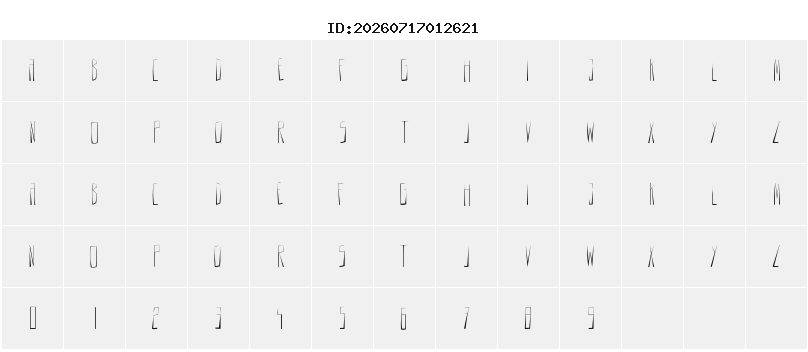
ANODIN Preview
• Font Name: ANODIN
• Designer: Guillaume Kurkdjian
About ANODIN.ttf
ANODIN.ttf is a modern, elegant sans-serif font designed for ultimate readability and visual harmony. Perfect for branding, headlines, web design, and print materials.